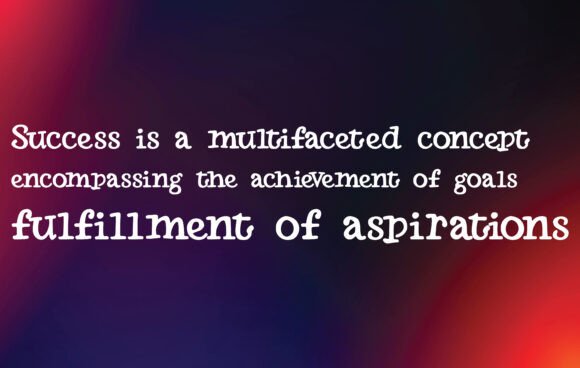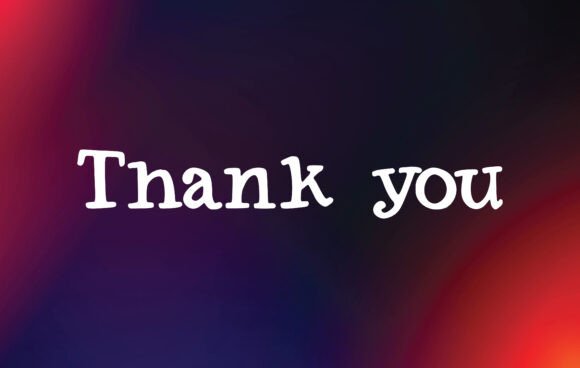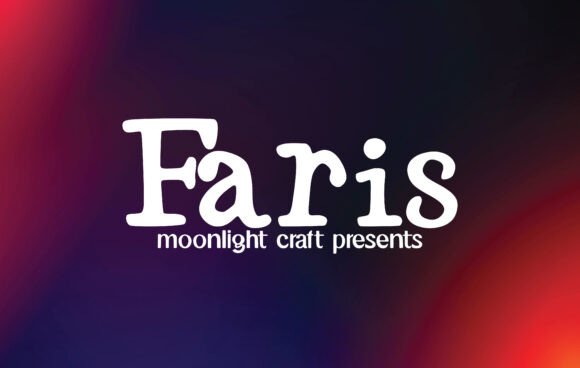
Faris Font: Elevate Your Designs with a Lovely Handwritten Style
Are you looking for a font that can add a touch of elegance and sophistication to your designs? Look no further than Faris Font, a beautiful handwritten font that has the potential to take your creative ideas to the highest level. In this article, we’ll explore the features and benefits of Faris Font, and why it’s the perfect choice for designers and crafters looking to create eye-catching logos, branding, and quotes.
What is Faris Font?
Faris Font is a stunning handwritten font that boasts a unique and charming style. Its elegant and flowing lines make it perfect for a wide range of design projects, from logos and branding to quotes and social media graphics. With its beautiful and distinctive look, Faris Font is sure to capture the attention of your audience and leave a lasting impression.
Key Features of Faris Font
- Unique and Handwritten Style: Faris Font has a one-of-a-kind, handwritten style that sets it apart from other fonts.
- Elegant and Sophisticated: The font’s flowing lines and curves give it an air of elegance and sophistication, making it perfect for high-end designs.
- Highly Versatile: Faris Font can be used for a wide range of design projects, from logos and branding to quotes and social media graphics.
- Easy to Read: Despite its elegant style, Faris Font is highly legible and easy to read, making it perfect for body text and captions.
Why Choose Faris Font?
So, why should you choose Faris Font for your design projects? Here are just a few reasons:
- Create Eye-Catching Logos: Faris Font is perfect for creating stunning logos that will help your brand stand out from the competition.
- Elevate Your Branding: With its elegant and sophisticated style, Faris Font is ideal for creating high-end branding materials that will help you establish a strong brand identity.
- Add a Personal Touch: Faris Font’s handwritten style adds a personal touch to your designs, making them more relatable and engaging.
How to Use Faris Font
Using Faris Font is easy! Here are a few tips to get you started:
- Pair it with Other Fonts: Faris Font pairs well with other fonts, so feel free to experiment with different combinations to find the perfect look for your design.
- Use it for Headings and Titles: Faris Font is perfect for headings and titles, where its elegant style can really shine.
- Experiment with Colors: Faris Font looks great in a variety of colors, so don’t be afraid to experiment and find the perfect color scheme for your design.
In conclusion, Faris Font is a beautiful and versatile handwritten font that has the potential to take your creative ideas to the highest level. With its elegant and sophisticated style, it’s perfect for creating eye-catching logos, branding, and quotes that will help you establish a strong brand identity. Whether you’re a designer or crafter, Faris Font is a great choice for any design project. So why wait? Download Faris Font today and start elevating your designs!